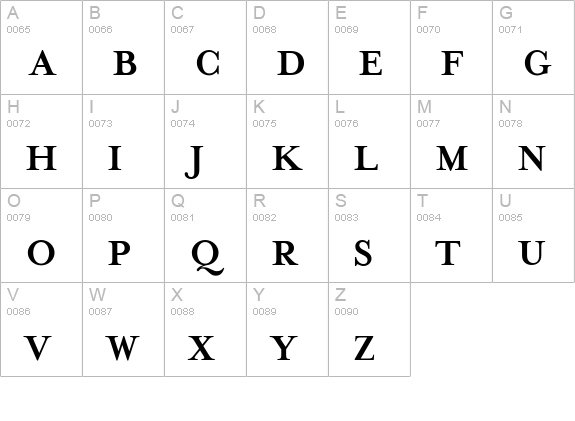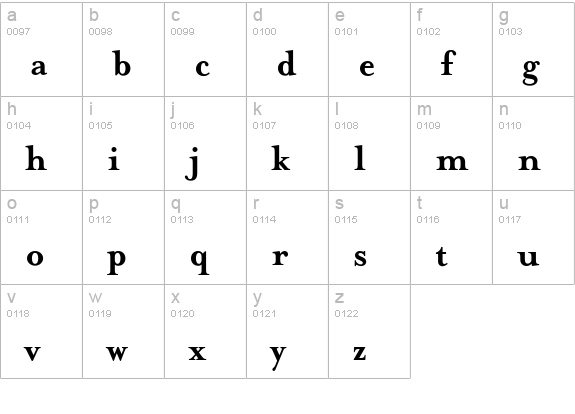
MrsEaves-Bold Font Details
MrsEaves-Bold is a strong, high-contrast variant in the MrsEaves typeface family \xE2\x80\x94 well suited to headlines, attention-grabbing titles, and strong calls-to-action.
MrsEaves-Bold is a classic and elegant serif font that exudes sophistication and style. Its bold weight draws attention and makes a strong statement in any design project. The distinct serifs and smooth curves give this font a timeless appeal, making it suitable for a wide range of applications, from branding to editorial design. This versatile font is perfect for creating headlines, titles, and other text elements that need to make a bold impact. Whether you're designing a logo, a poster, or a brochure, MrsEaves-Bold will add a touch of class and professionalism to your work. And the best part? MrsEaves-Bold is available for free download at FontsMarket.com, so you can easily add this beautiful font to your collection without breaking the bank. Don't miss out on the opportunity to enhance your designs with this stunning typeface – download MrsEaves-Bold today and elevate your projects to the next level.